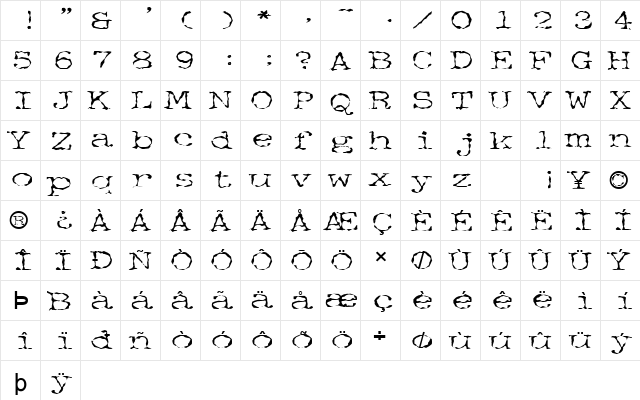
FZ WACKY 34 Normal
Design Context for FZ WACKY 34 Typeface
FZ WACKY 34 is a composed and adaptable typeface that performs quietly and consistently across a wide range of design contexts.